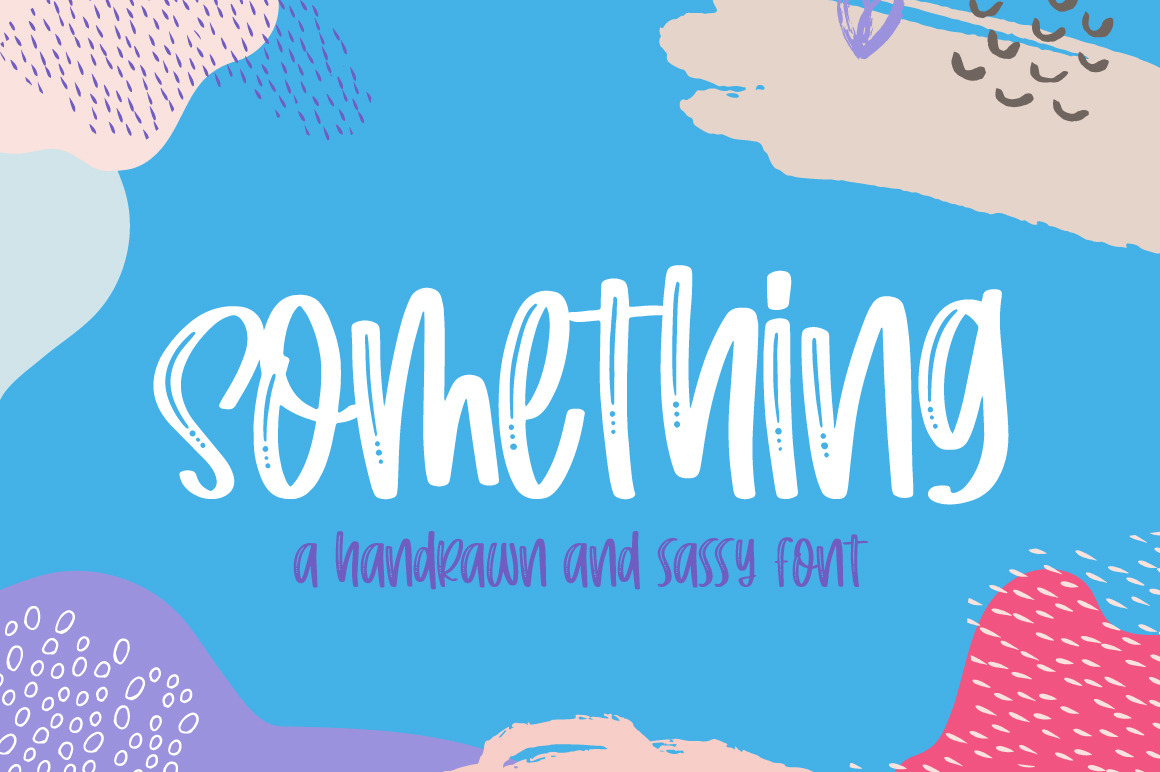
Something Font
Something is here to bring that extra little something to your work (see what we did there?!) and elevate your designs to a more quirky and playful level. Perfect for pairing or for using alone!